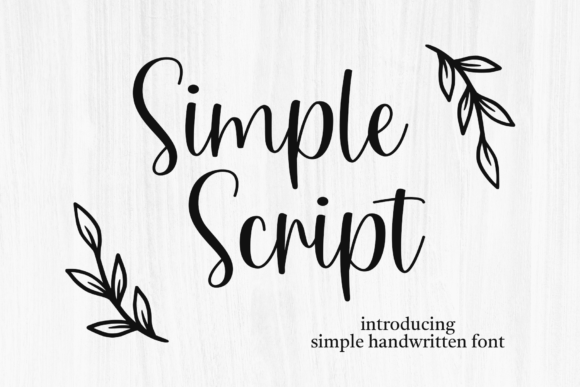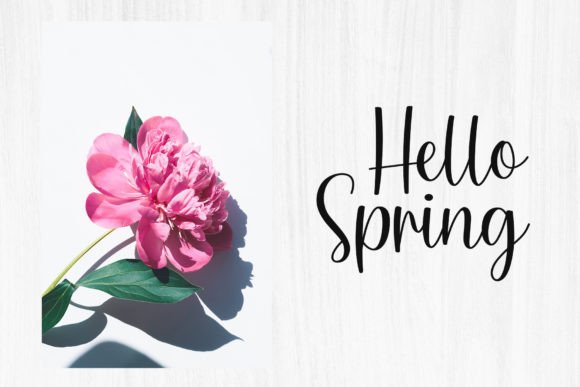
Simple Script Font
Simple Script is a chic and elegant script font that exudes sophistication and refinement. Its flowing and graceful characters are carefully crafted with thin and thick strokes, creating a delicate and balanced appearance. The letters are slightly slanted, as if written with a calligraphy pen, adding to its classy and timeless appeal. This font is perfect for adding a touch of glamour to any design project, from wedding invitations to branding to editorial layouts. It’s simple yet stylish, making it a versatile addition to any designer’s toolkit.